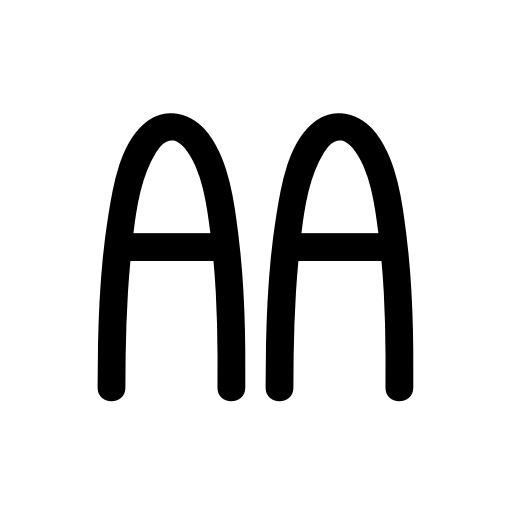
Blue Mountain is a playful and narrow sans serif font characterized by its tall, rounded letterforms and slightly irregular strokes that give it a hand-drawn, casual feel. Its lightweight and condensed style, combined with simple curves and minimal contrast, make it ideal for creative designs that want to convey friendliness and approachability, such as children’s books, posters, or informal branding.
Blue Mountain Font